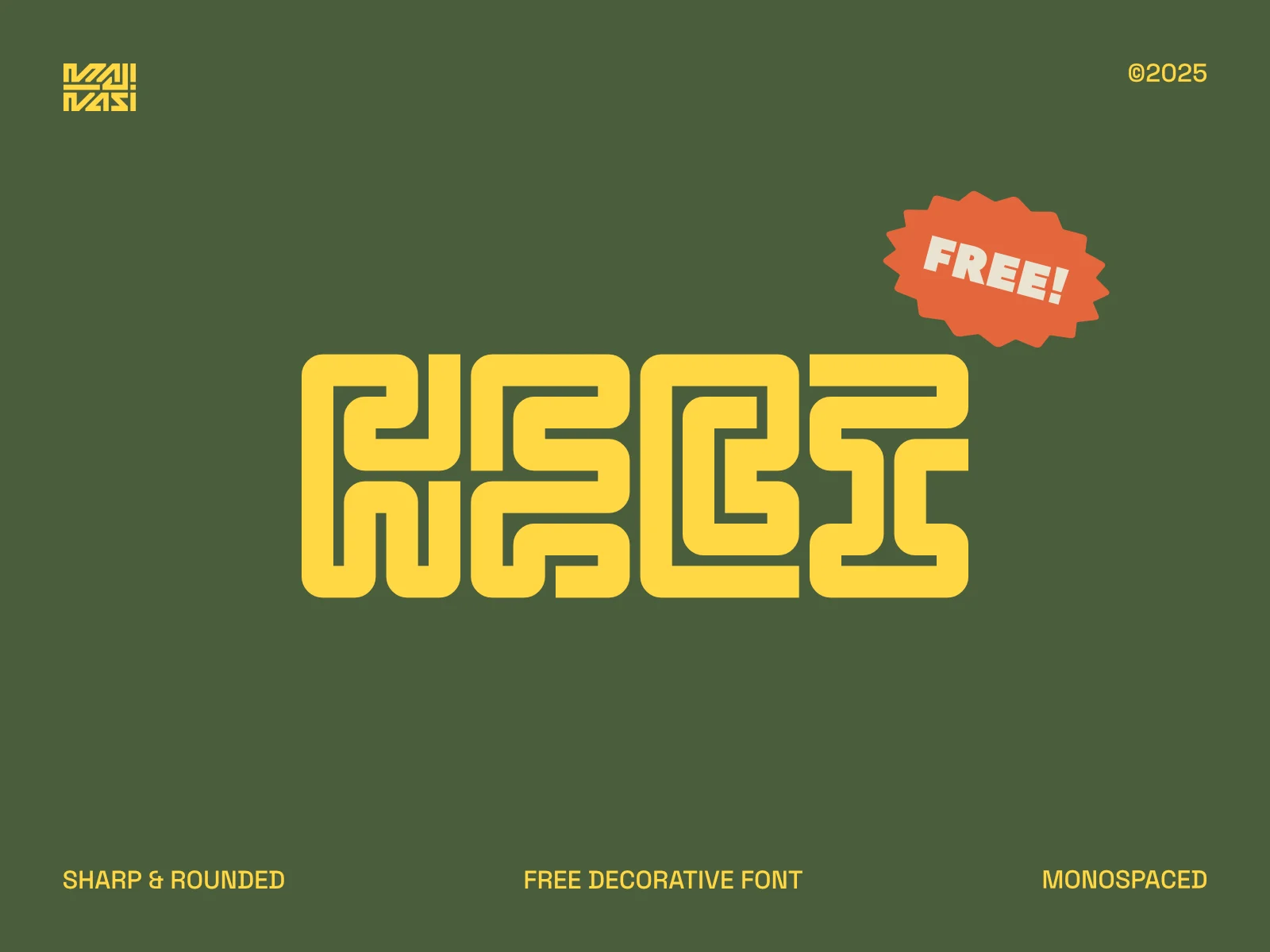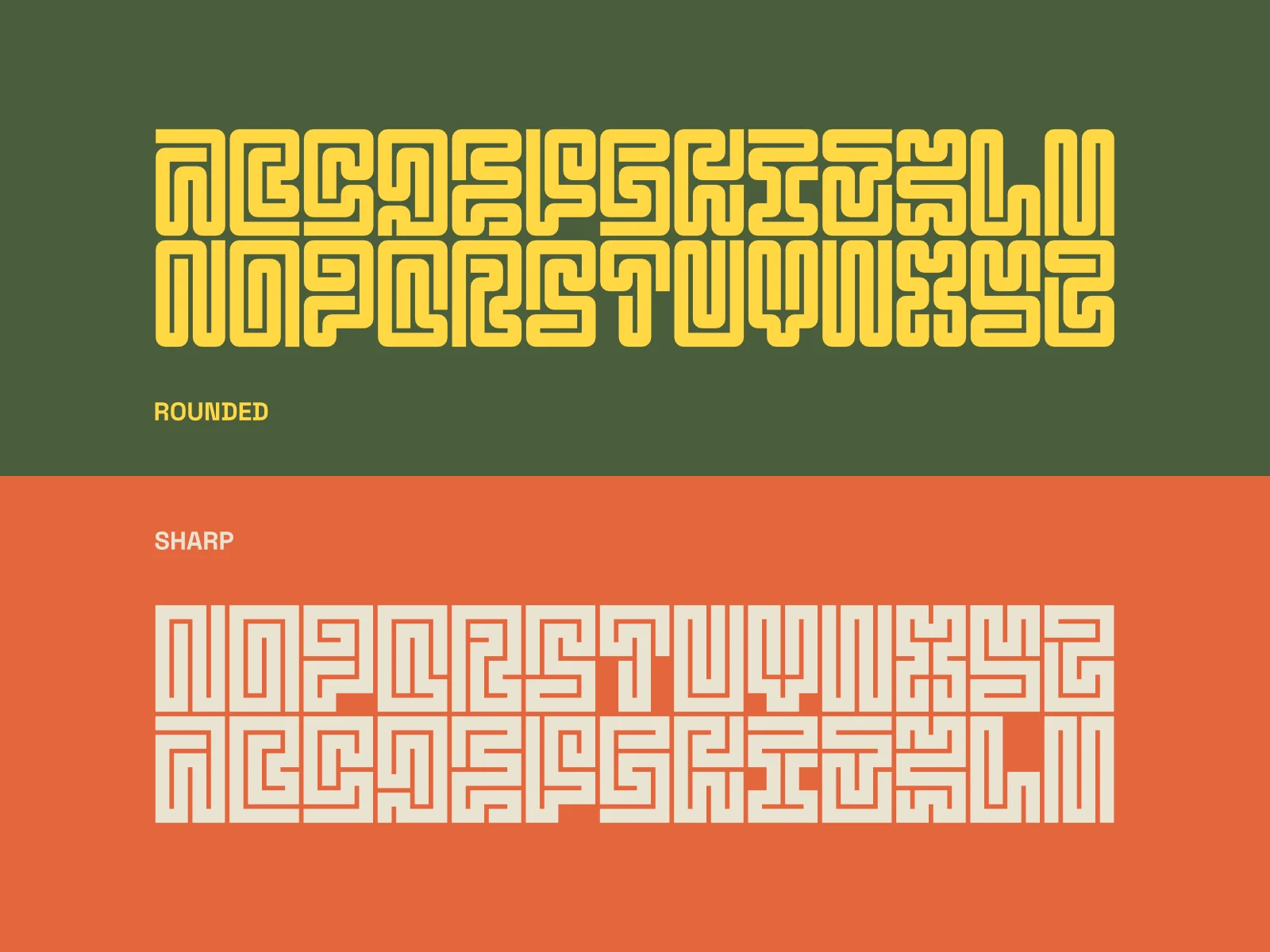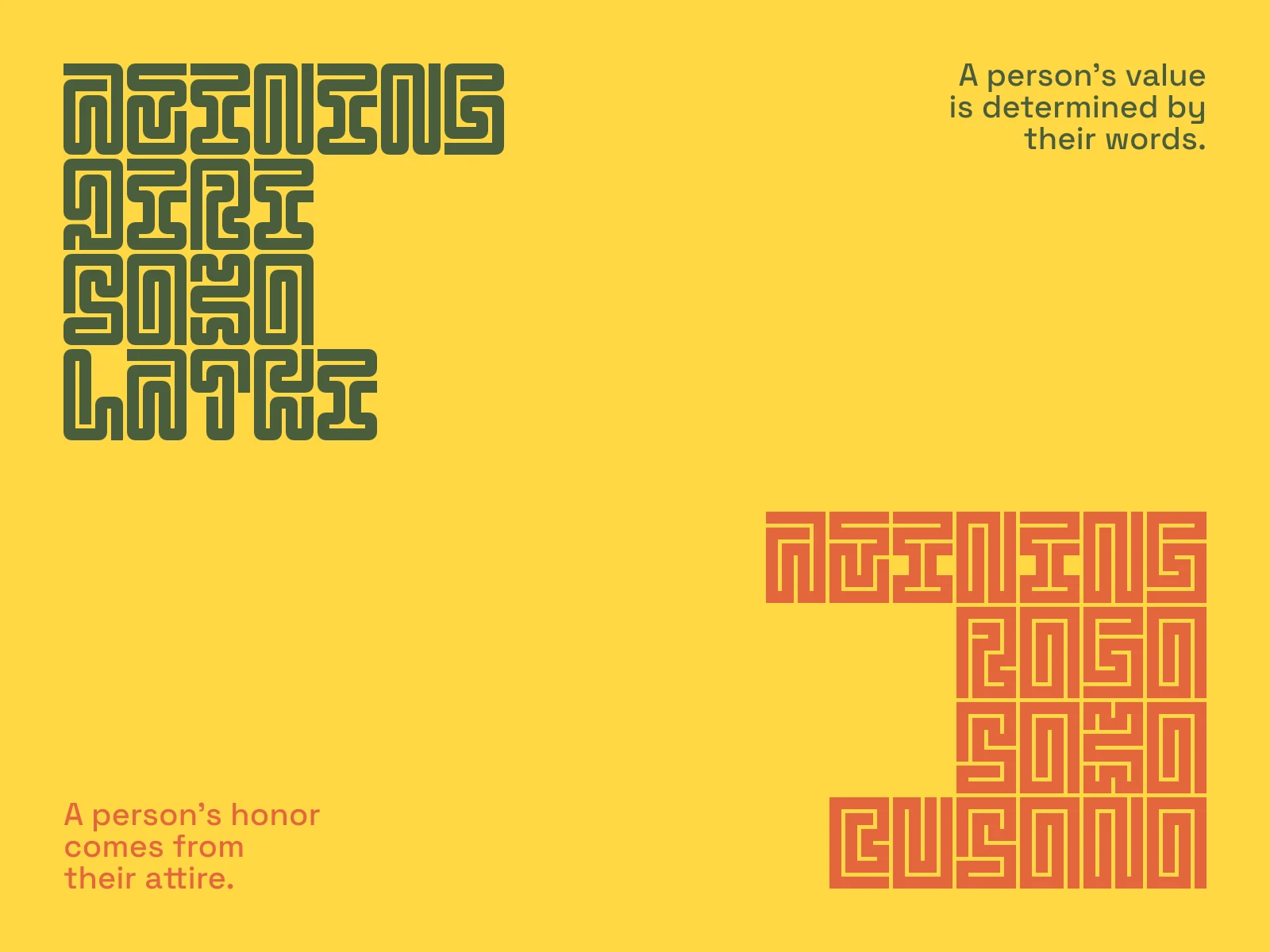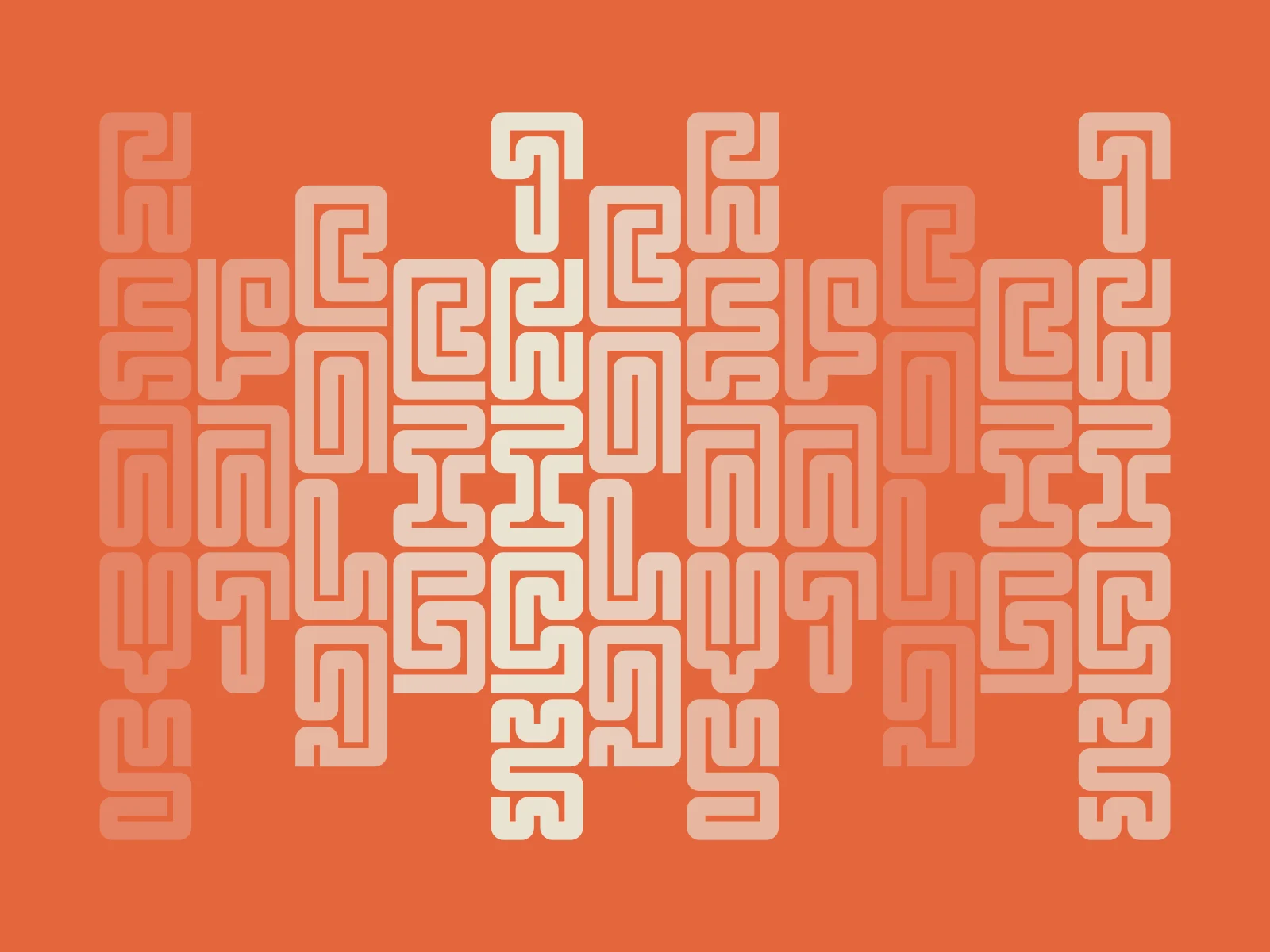
Hebi
Hebi is a bold and unique decorative typeface inspired by the snake's body and intricate maze-like shapes. Perfect for posters, logos, album covers, and bold headlines.
It comes in two styles: Rounded for a softer, playful vibe and Sharp for a modern, edgy look. Ideal for projects that need a strong visual statement.